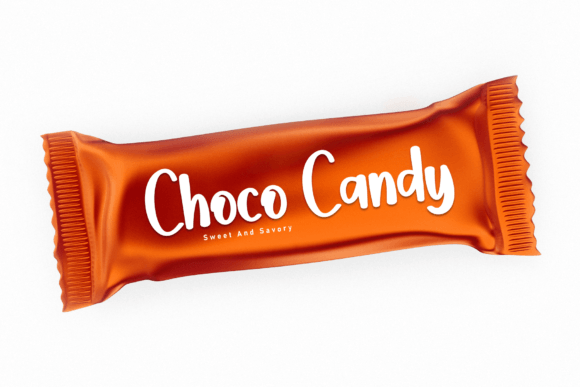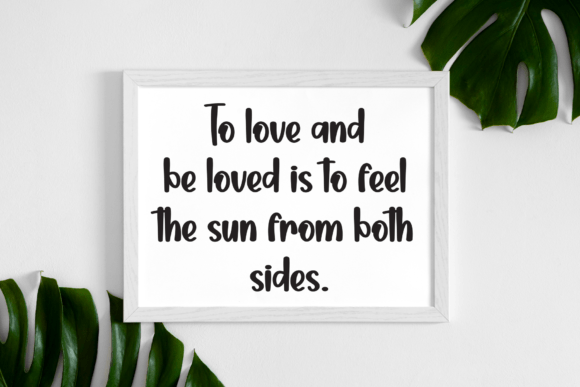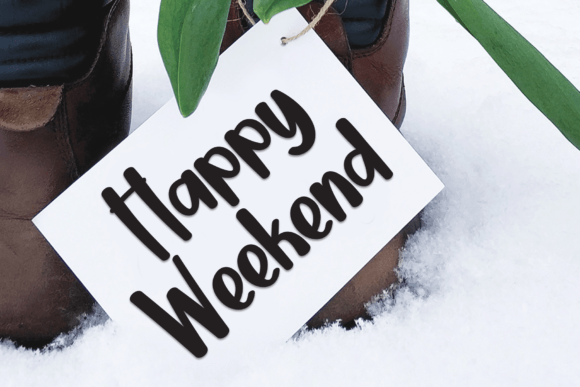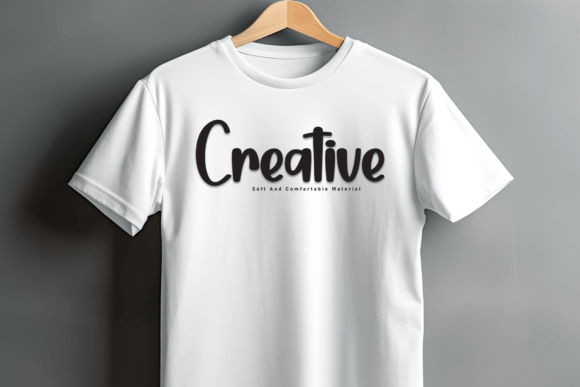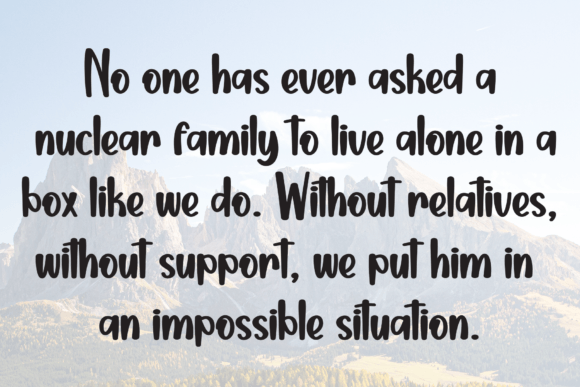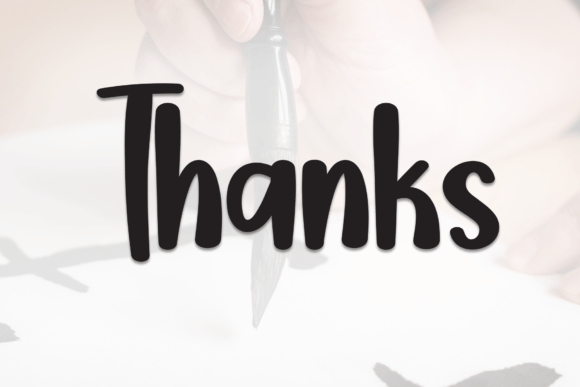
Introduction to Quality Preasure Font
Quality Preasure is a sweet and friendly handwritten font.
Key Features of Quality Preasure Font
Why Choose Quality Preasure Font?
Quality Preasure Font offers exceptional quality and versatility, making it a valuable addition to your design toolkit. Whether you’re creating for personal projects or commercial use, Quality Preasure Font delivers professional results.